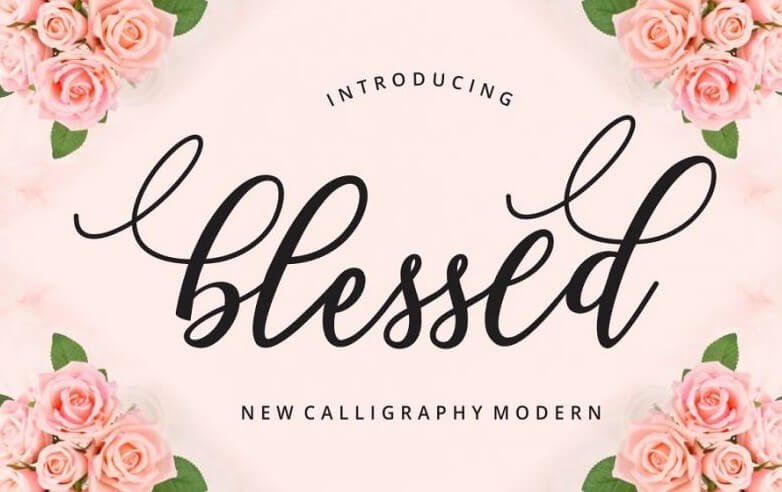
I am so happy and lucky to be presented for your introduction to an excellent font. Creation blessed script font! Blessed script turned into designed by using blessed print, an expert clothier, with much revolutionary merchandise, please go to his keep! Blessed script!
Font well-known fashion has all capitalized and lowercase letters like nautical font and multiple tremendous characters as well. Along those traces with tattoos, that is enough for you in case you have been going to use it for individual employments.
He has delivered all of the essential factors that a font family has required. For that reason, alongside tremendous texture with unique highlights, it has a terrific repute in the kind design marketplace.
Many designers are utilizing it into the common and distinctive projects that you can moreover use them to your features in case you need to take this basic font too seriously.
The font loved ones have consisted of styles along with regular and ambitious each of that font that includes bold, italic and condensed that have possessed open type sides together with more than two hundred characters.
Because of the fashion designer’s exquisite workmanship, its person set is reduced for the proper equalization of stunning internet typography like freshman font with brief web page loading.
Based totally on this selection it’s very without problems solved in designing problems. And this extremely good font gives a notable style as nicely. Which many people need that will put a professional contact in their designs.